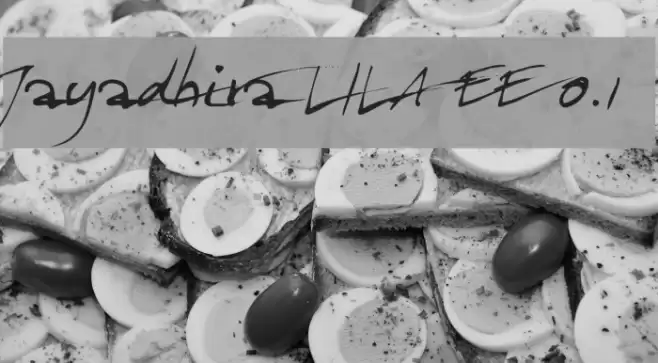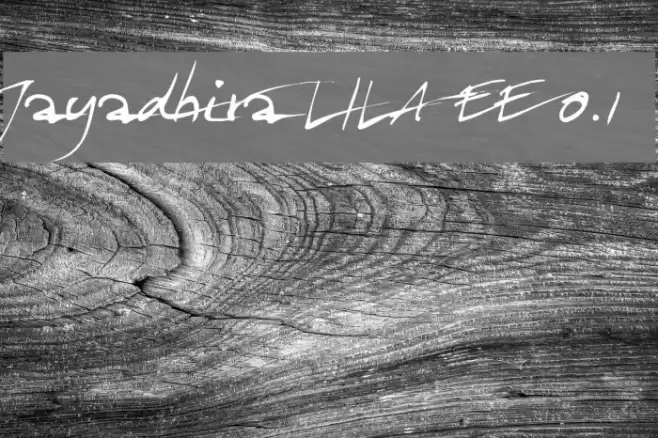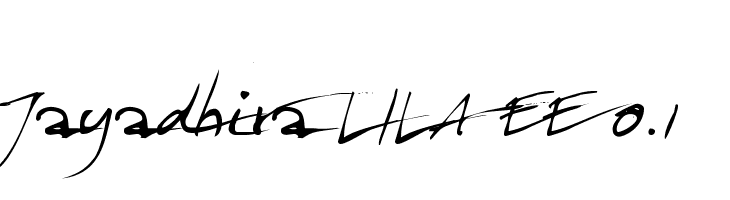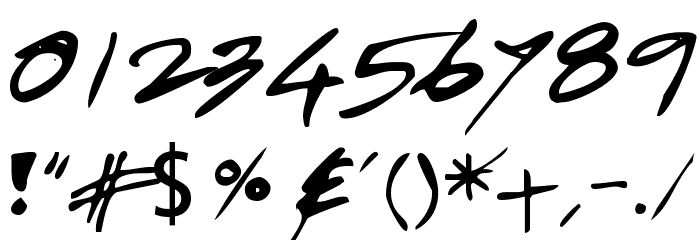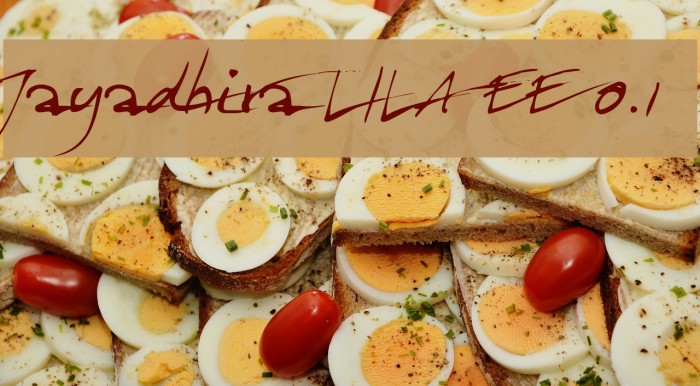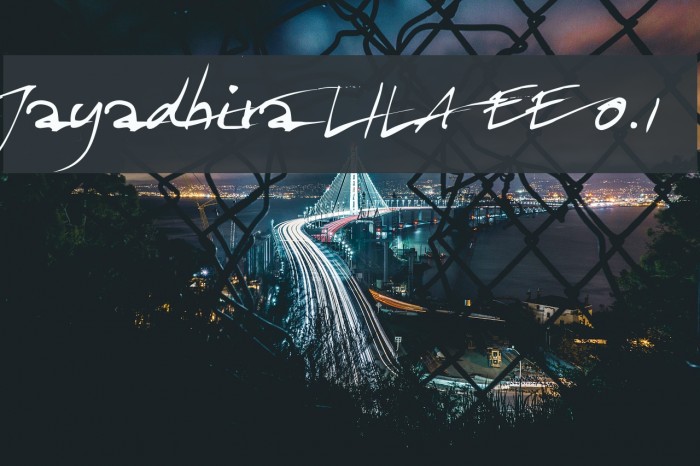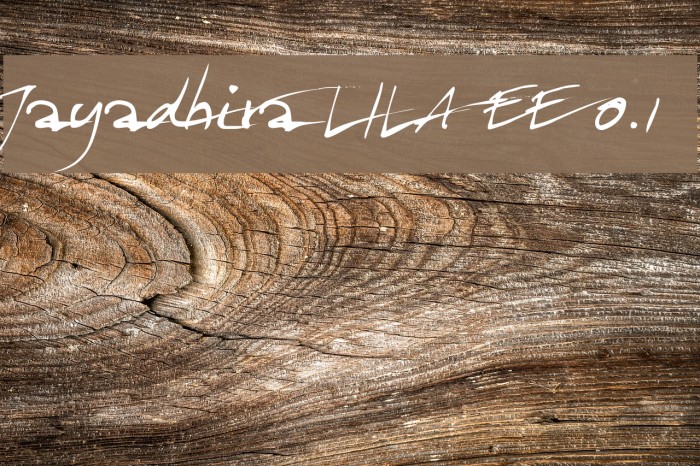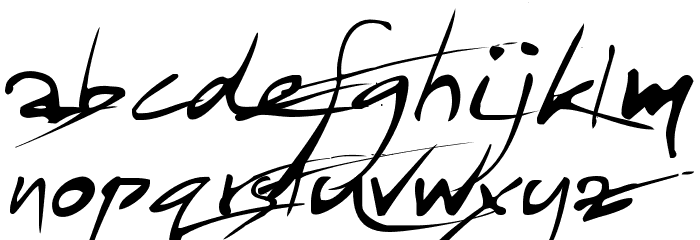
Jayadhira LILA EE 0.1 Font
Jayadhira LILA EE 0.1 Description
This font exhibits a dynamic and expressive handwritten style, characterized by its energetic strokes and fluid motion. The uppercase and lowercase letters are crafted with a sense of urgency and spontaneity, giving the impression of a quick, yet deliberate, hand-drawn script. The numerals and special characters maintain this lively aesthetic, ensuring consistency across all glyphs. The font's irregular baseline and varying stroke thickness add to its informal and artistic appeal, making it suitable for creative projects that require a personal touch. Its unique style is both captivating and versatile, offering a fresh alternative to more traditional script fonts.
A dynamic, expressive handwritten font with energetic strokes and fluid motion from Uncategorized fonts.
- Proposed Projects: Ideal for creative projects such as greeting cards, invitations, artistic posters, and personal branding.
- Use Case: Logos, Headlines, Artistic projects